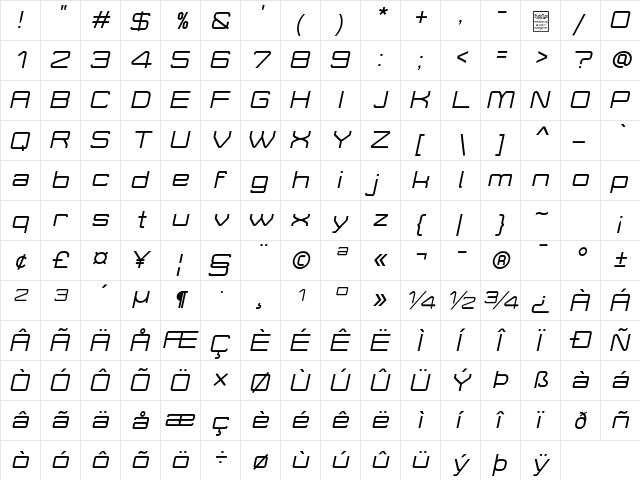
Move-X Italic Font Preview
Move-X Italic
Move-X Italic Font Details
Design Context for Move-X Typeface
Move-X takes a measured approach to typography — its balanced proportions and neutral character make it a reliable workhorse for both digital and print work. The dynamic lean of this cut emphasises speed and emphasis in any layout.
Pro Tip: Try Move-X for annotation and caption copy alongside an upright companion — the contrast in angle creates a dynamic but ordered typographic system.